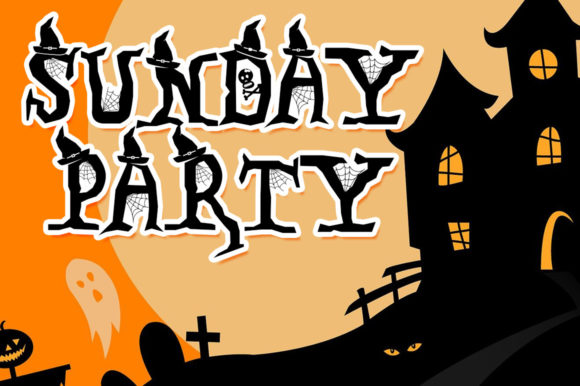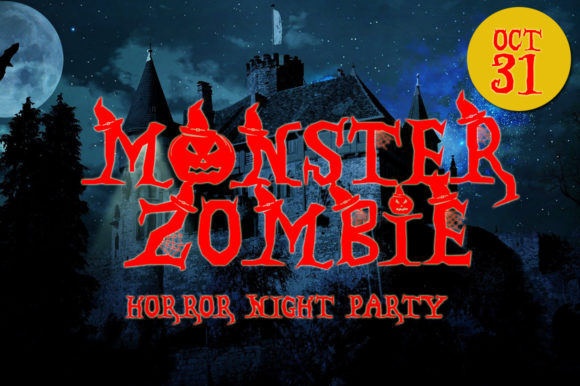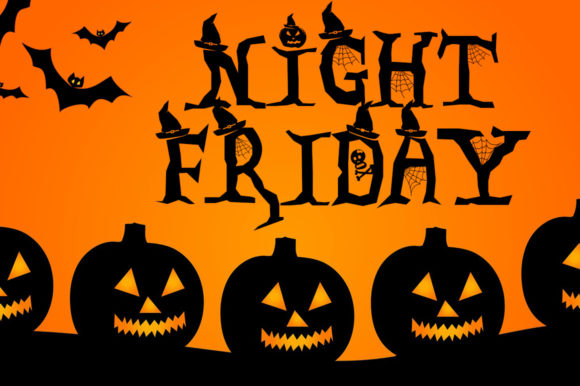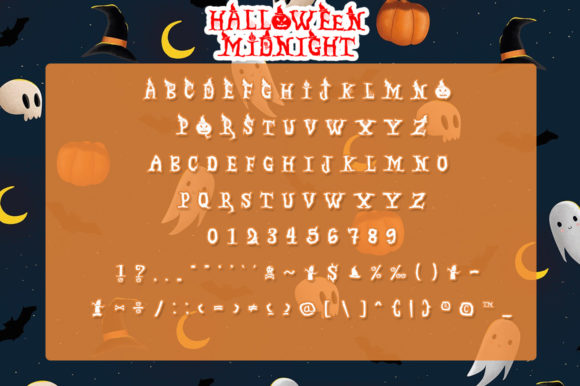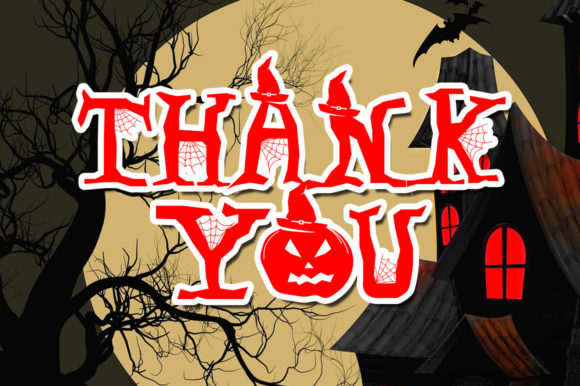
Get Ready for a Spooktacular Design Experience
As a designer, I’m sure you’ve had those moments where you’re brainstorming ideas for a project and suddenly, a spark of creativity hits you. It’s like a switch has been flipped, and you’re off and running. For me, it was when I stumbled upon the perfect font to capture the essence of Halloween – the Halloween Midnight Font. Its unique blend of spider webs and pumpkins creates a spooky and fun atmosphere that’s perfect for any Halloween-themed design.
Whether you’re creating a poster, flyer, or social media graphic, the Halloween Midnight Font is a valuable asset for designers. Its one-of-a-kind characters and scarry vibes will transport your audience straight to the heart of Halloween. With this font, you’ll be able to create designs that are both eerie and engaging, guaranteed to leave a lasting impression on your viewers.
Halloween Midnight Font Key Features
- Font Family: Halloween Midnight is a unique, hand-drawn font designed to evoke a spooky atmosphere.
- Unique Characteristics: The font features intricate details, eerie textures, and a gothic-inspired aesthetic, making it perfect for Halloween-themed designs, horror movies, and dark fantasy art.
Halloween Midnight Font Review
Overall, I’m quite impressed with the Halloween Midnight Font, and here’s why:
- ✨ Unique and spooky aesthetic: The font has a distinct, eerie feel to it that’s perfect for Halloween-themed projects or designs.
- ✨ Great for titles and headings: The font’s bold and dramatic look makes it ideal for use in titles and headings to grab attention.
- ✨ Versatile: Despite its spooky theme, the font can be used in a variety of contexts, from horror movies to dark fantasy games.
- ⚠️ Limited character set: The font’s character set is relatively small, which might limit its use in longer texts or for projects that require a wide range of characters.
- ⚠️ May not be suitable for body text: Due to its dramatic and ornate design, the font might be difficult to read in large blocks of text, making it best suited for titles and headings.
Overall, I’d give the Halloween Midnight Font 4 out of 5 stars. While it’s not perfect, its unique aesthetic and versatility make it a great choice for designers looking to add a touch of darkness to their projects.
The Halloween Midnight Font is ideal for spooky-themed designs, such as:
- Halloween party invitations
- Spooky-themed posters
- Horror movie titles
For the best results, pair the Halloween Midnight Font with dark, muted colors and eerie imagery.